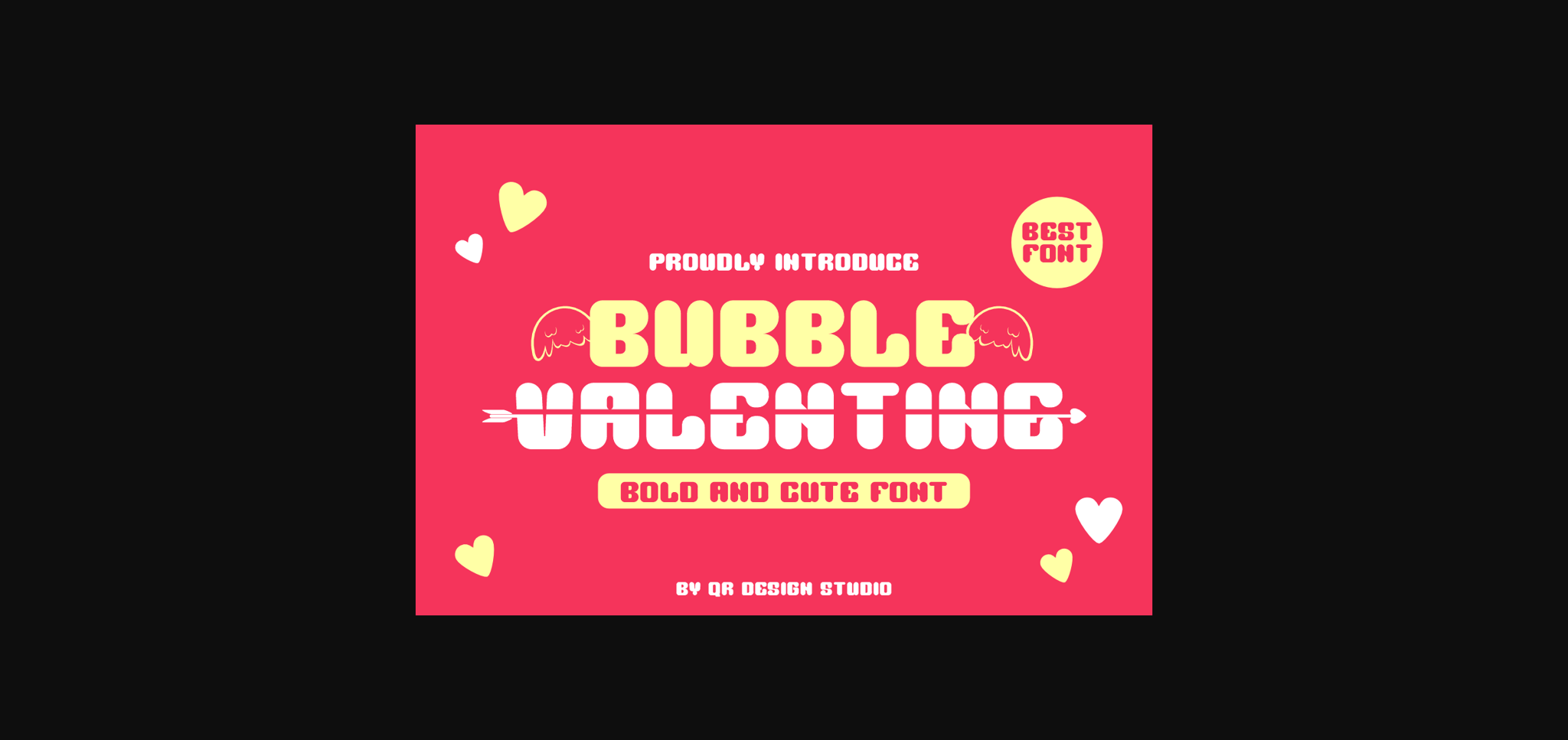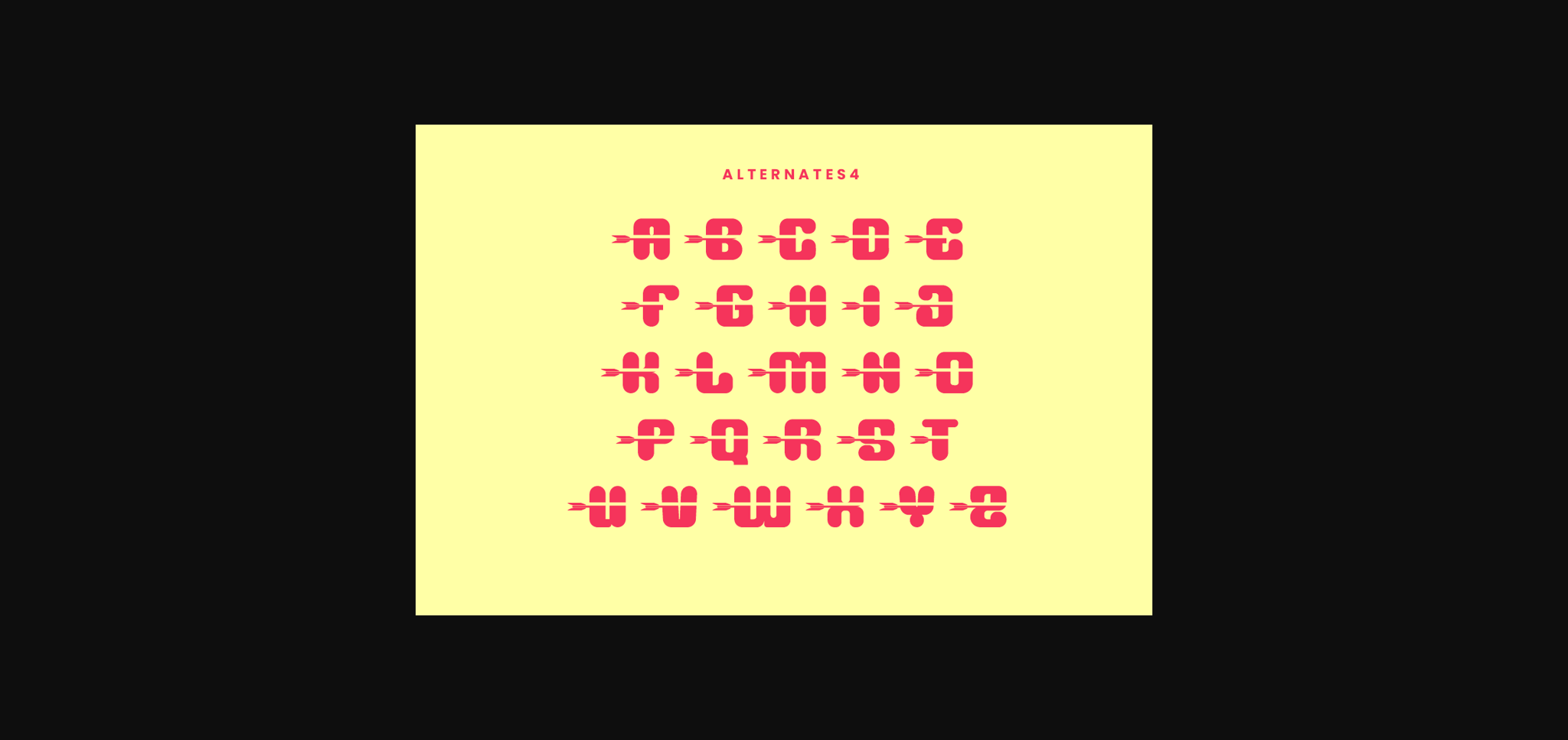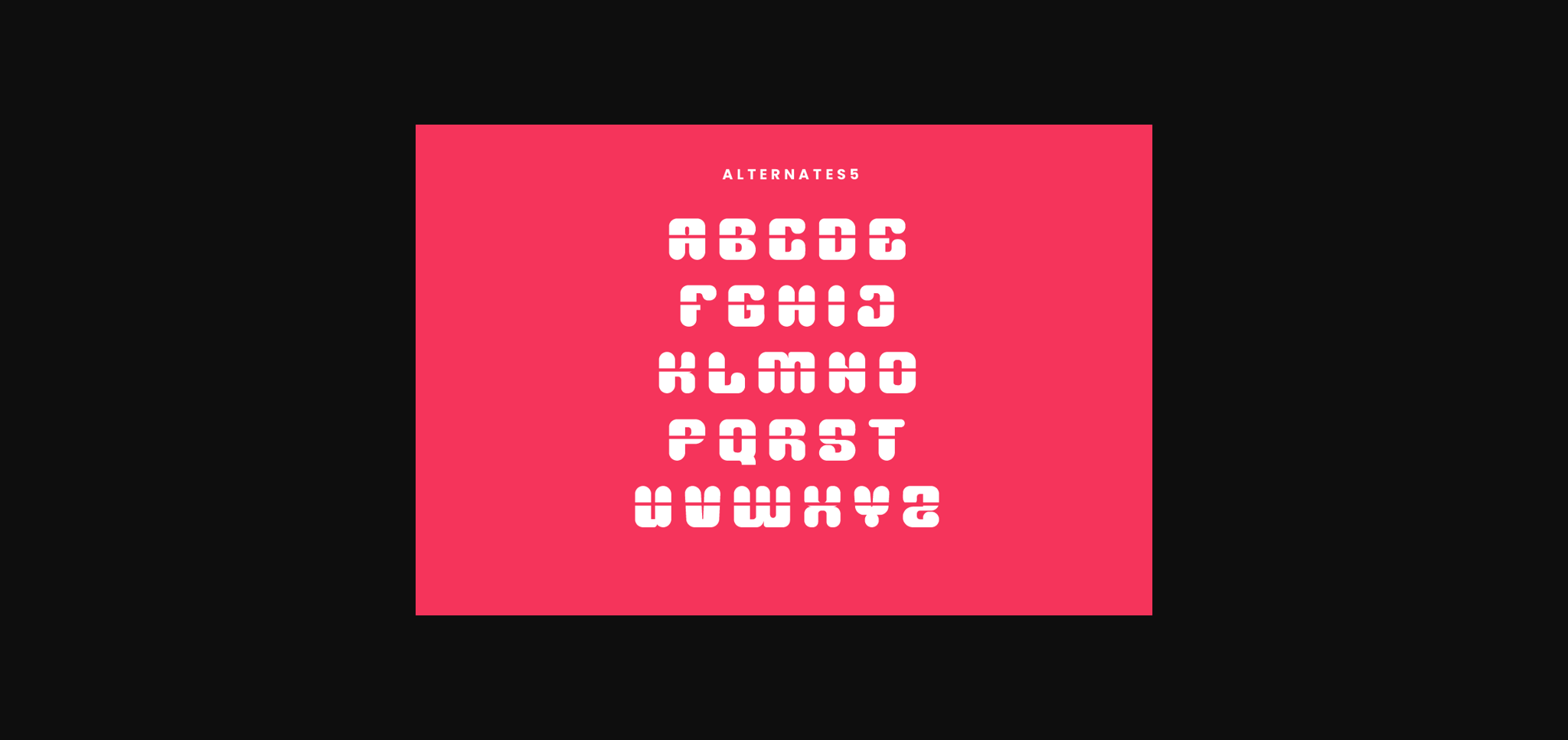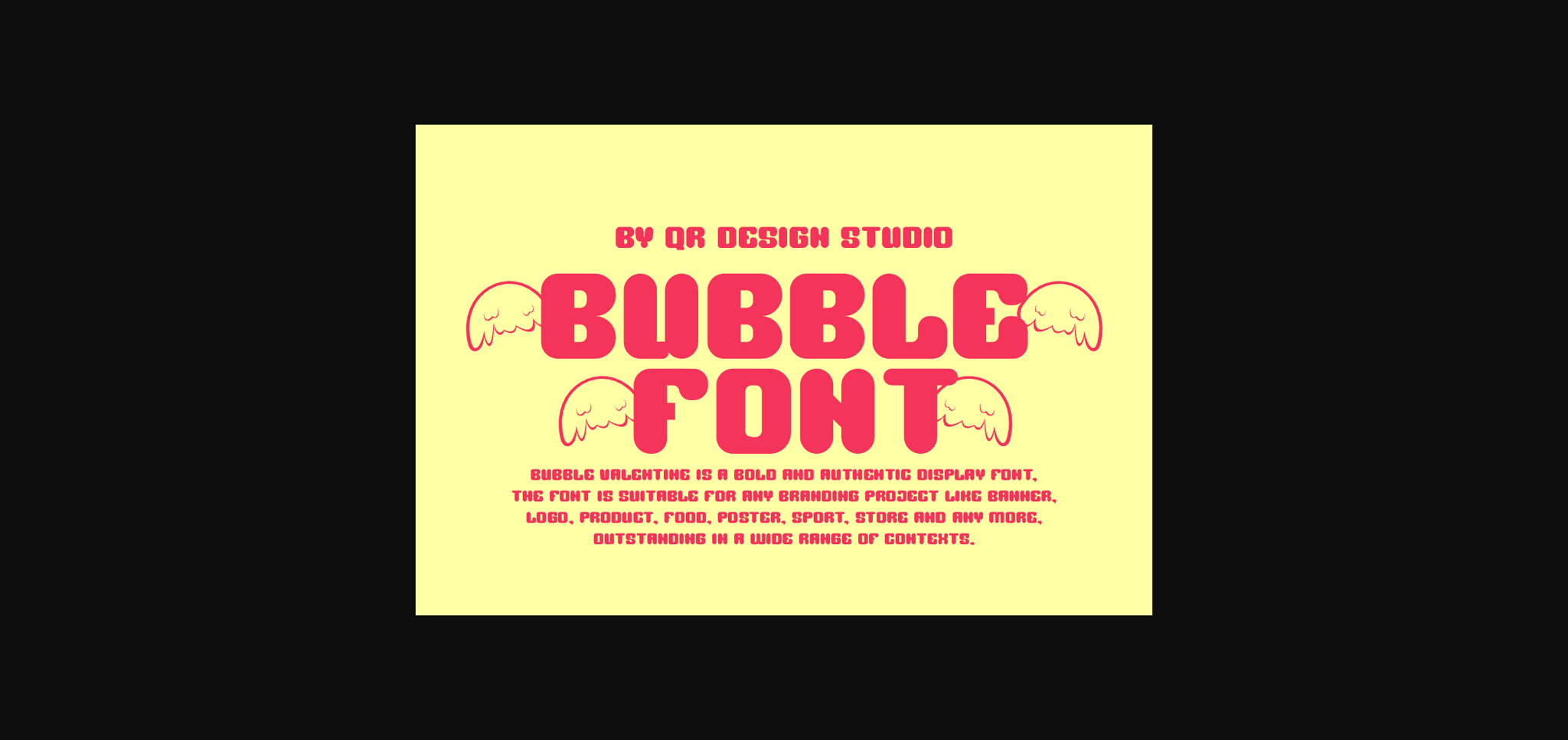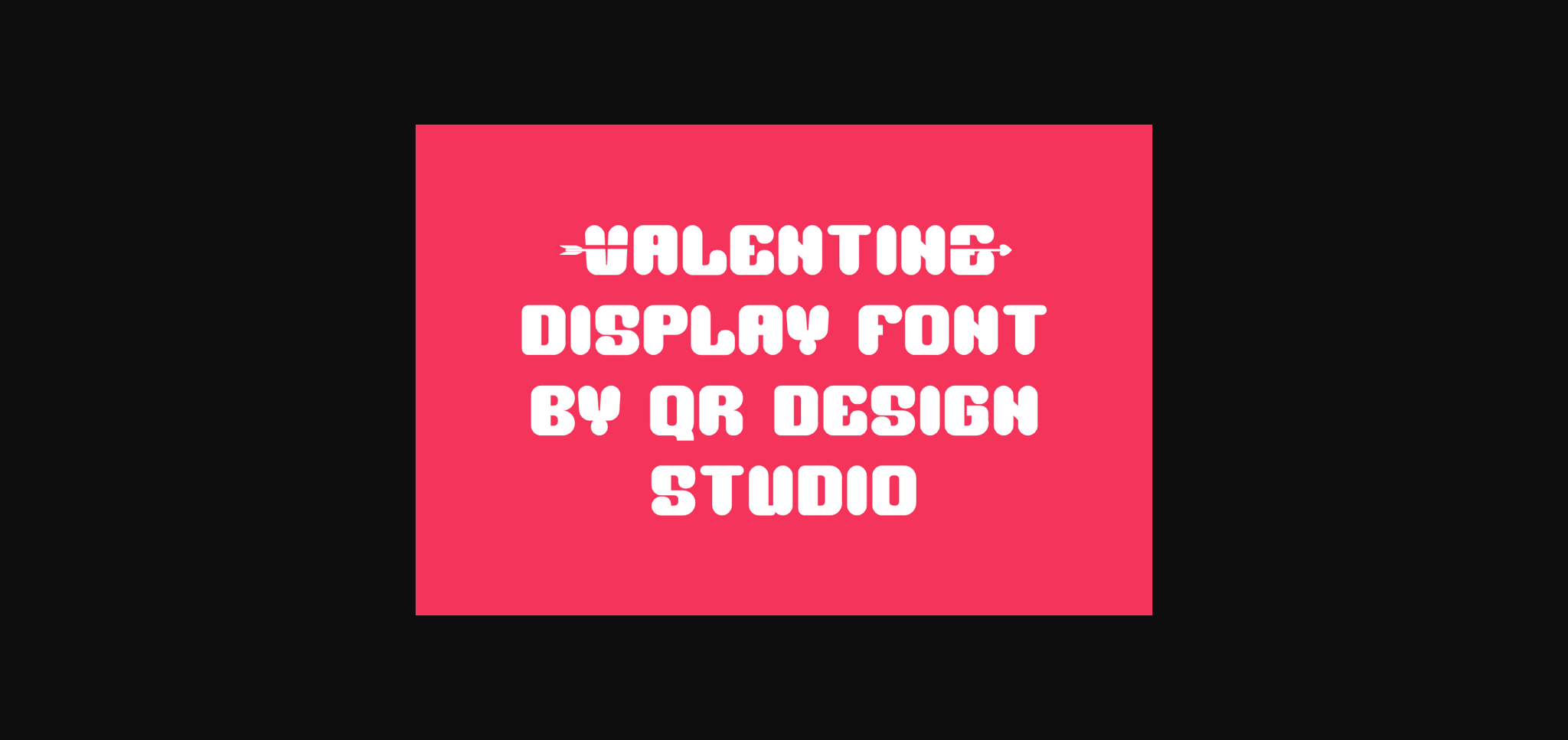
About Bubble Valentine Font
Bubble Valentine is a fun and bold sans-serif font that pops with joy and exuberance. With round, playful letterforms and a lively spirit, it captures the essence of celebration. Ideal for projects seeking a festive and energetic aesthetic, Bubble Valentine injects a burst of happiness into your creative expressions.